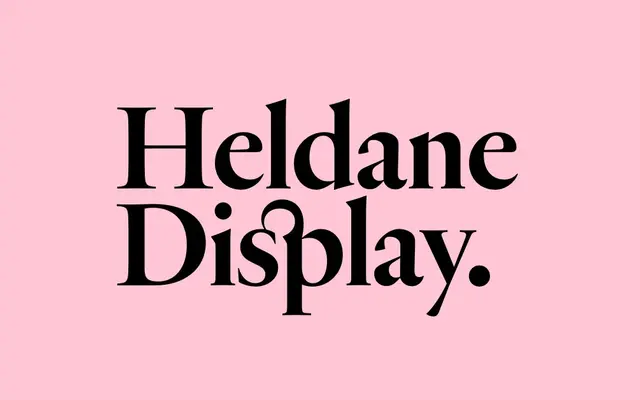
Heldane Display
Klim Type Foundry · Kris Sowersby · 2018
Heldane Display specimen from Klim Type Foundry
A renaissance-inspired display garalde drawing on Garamont, Granjon, van den Keere and de Colines, with rich swash italics for headlines.
A display garalde by Kris Sowersby that pulls details from the renaissance work of Hendrik van den Keere, Claude Garamont, Robert Granjon and Simon de Colines rather than copying any single source. Six styles run Regular, Medium and Bold with italics that carry an extensive swash programme (e, h, k, nm, y, z and caps). Sits at the display end of the Heldane system alongside Heldane Text, and reads well on editorial covers, luxury identities and book jackets.
Klim classifies it as Classical: Garalde/Oldstyle; a renaissance-inspired serif that amalgamates details from Hendrik van den Keere, Claude Garamont, Robert Granjon and Simon de Colines into a cohesive whole, with a deep set of italic swashes.